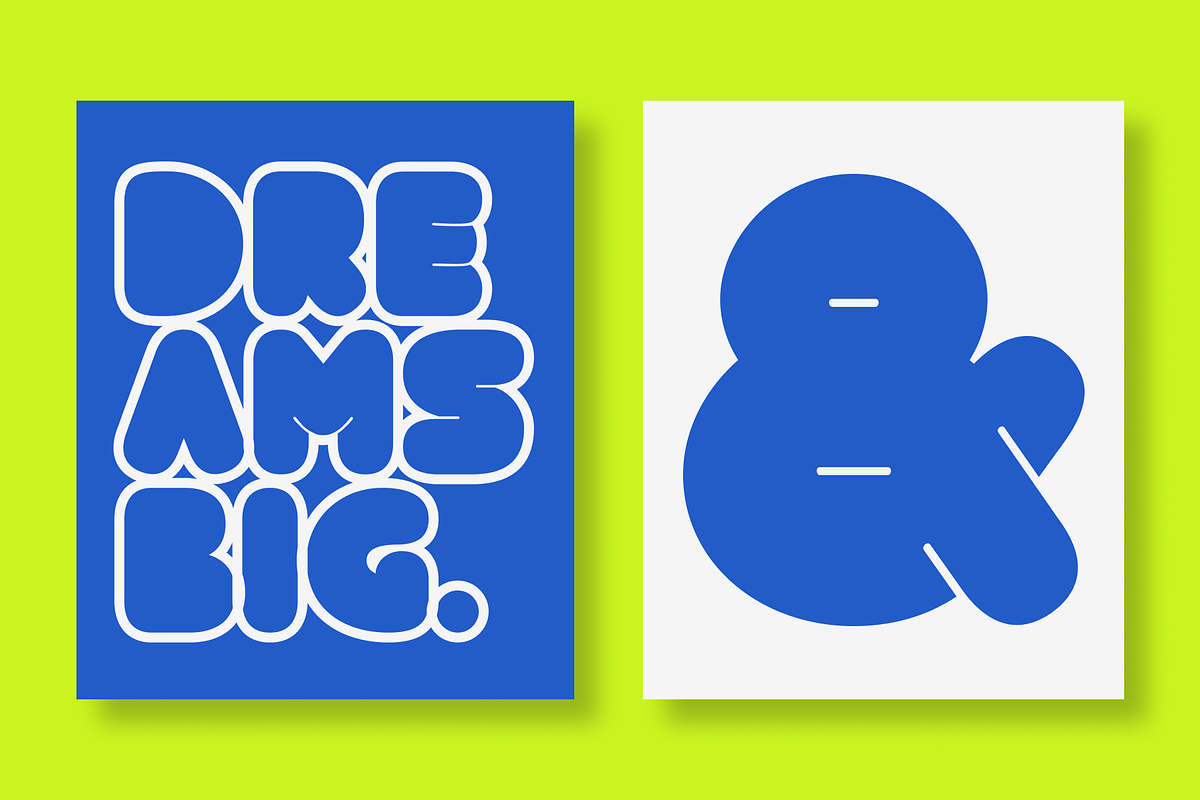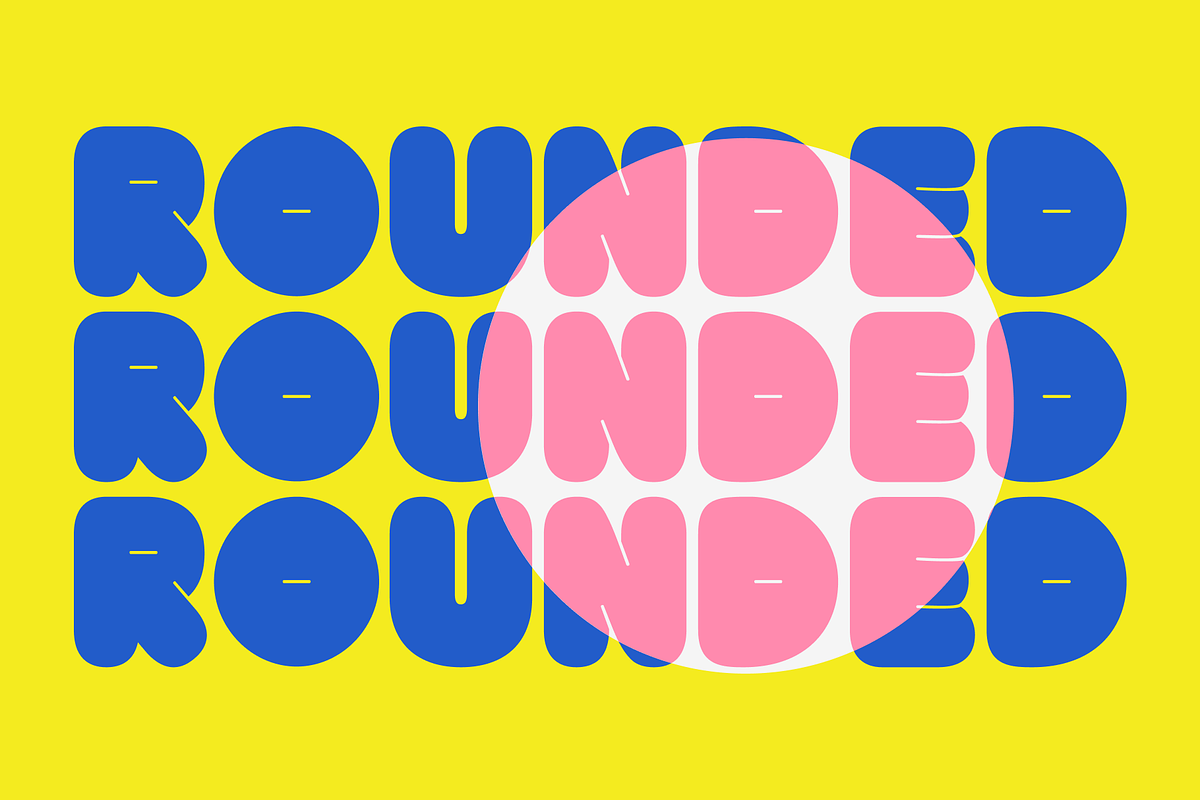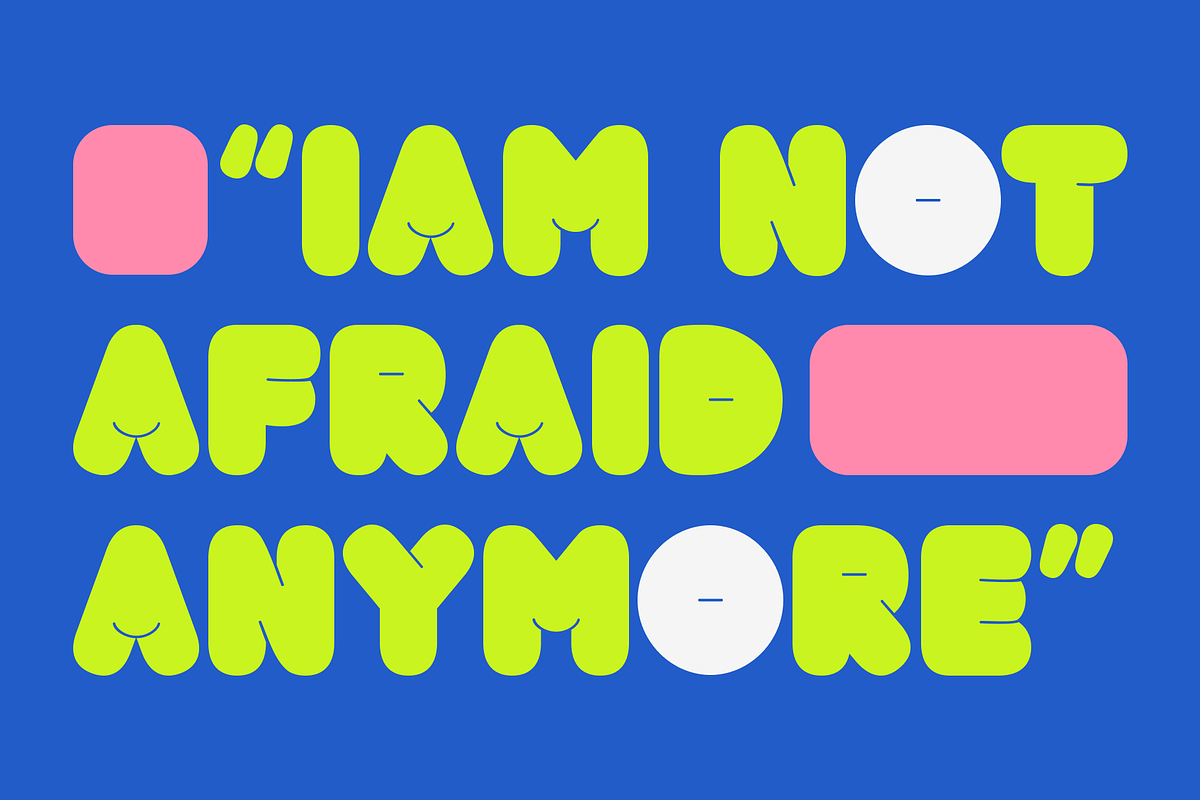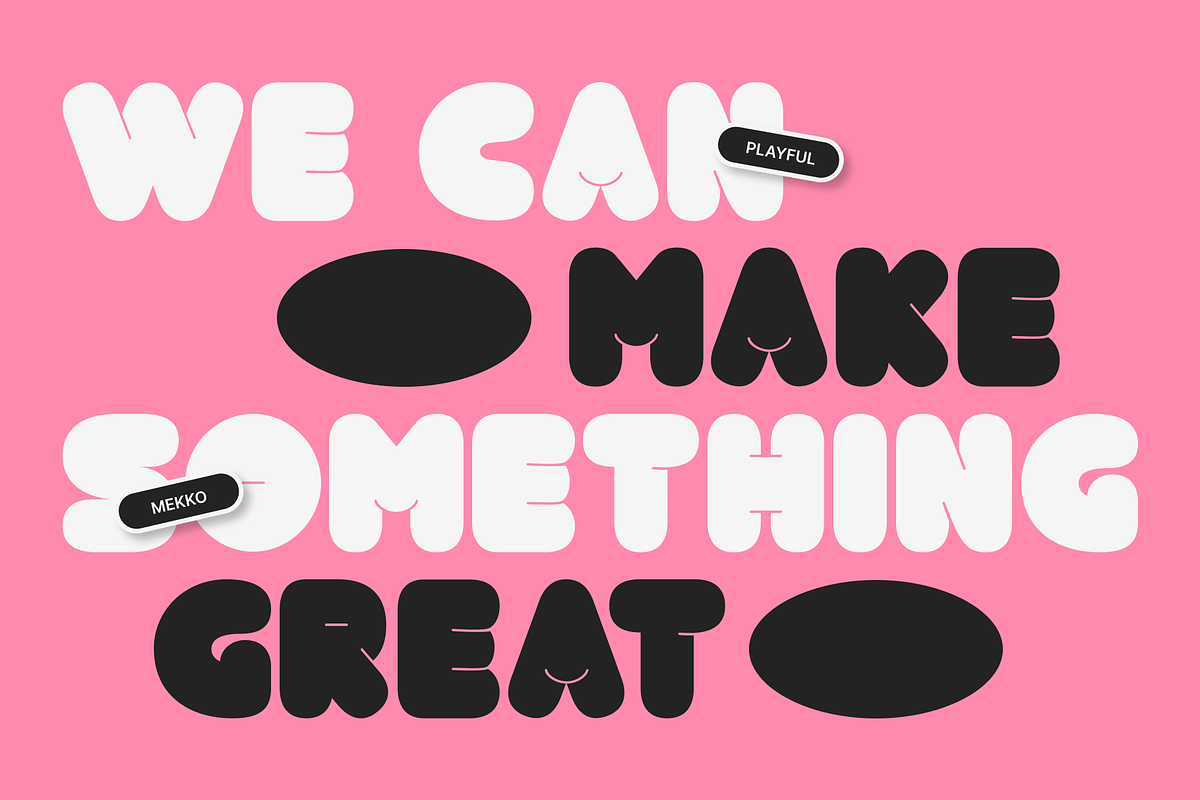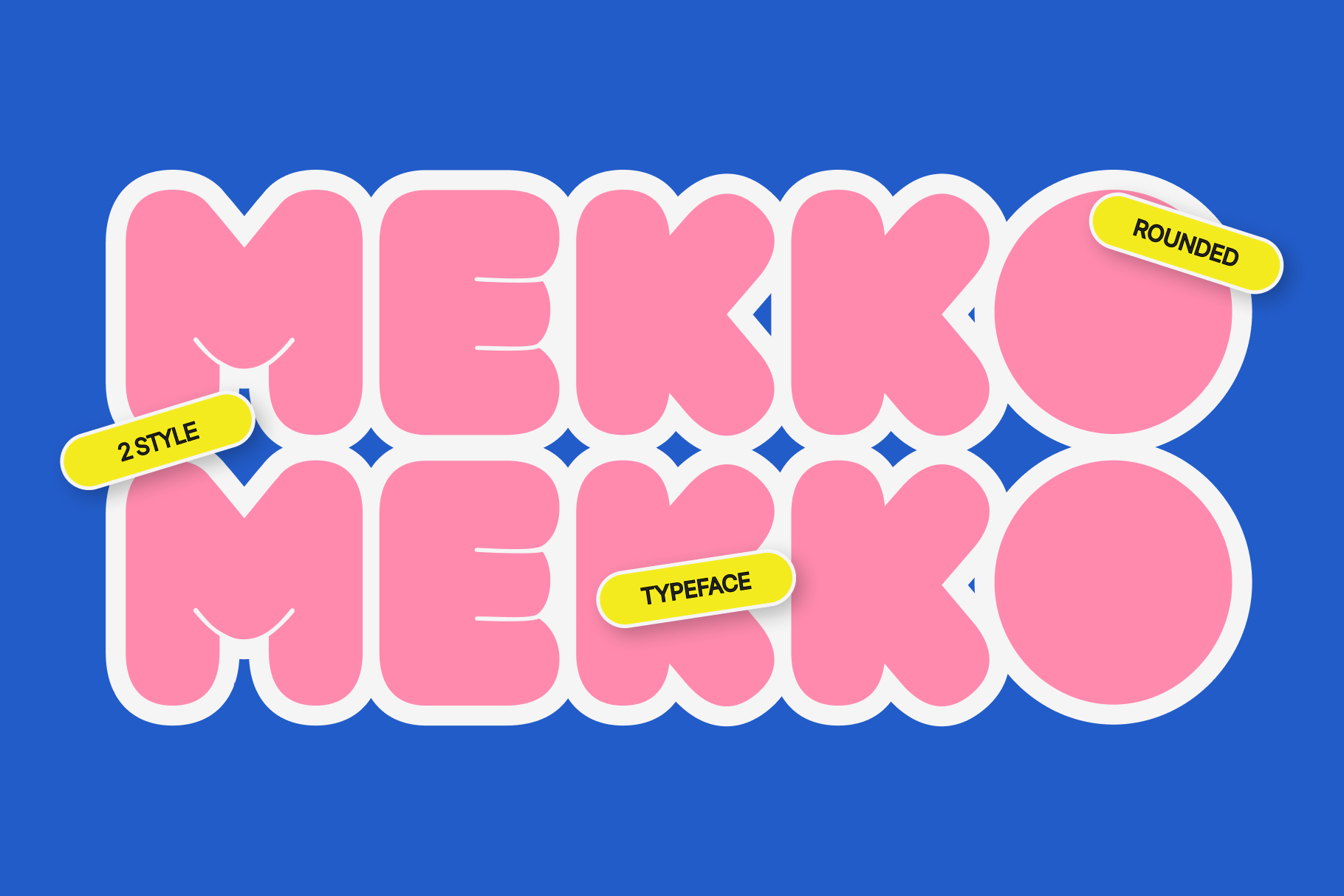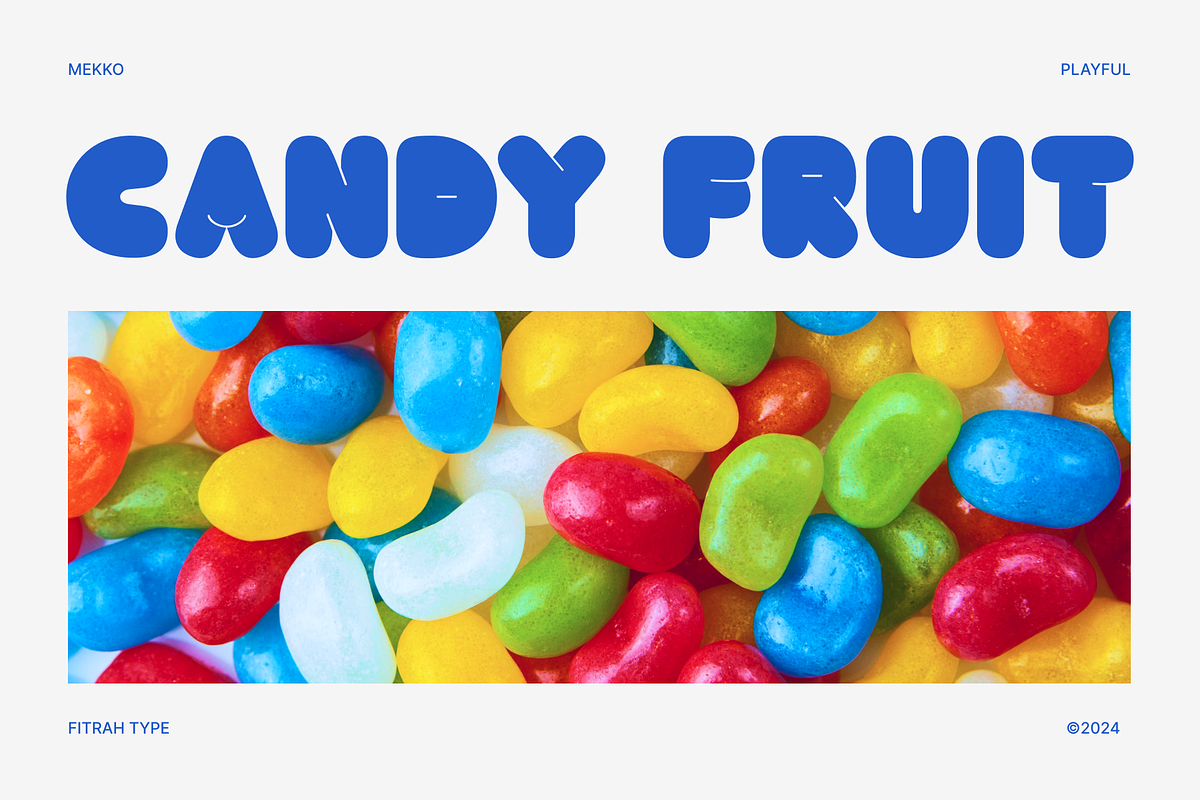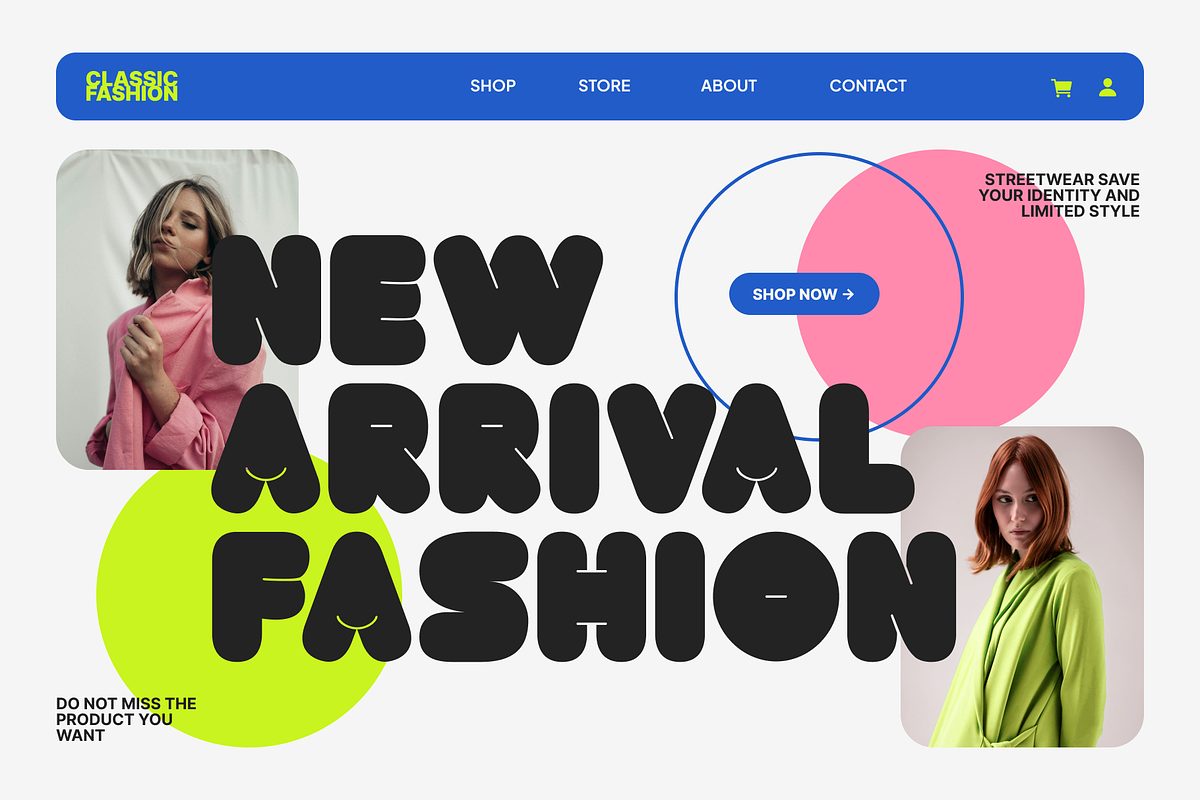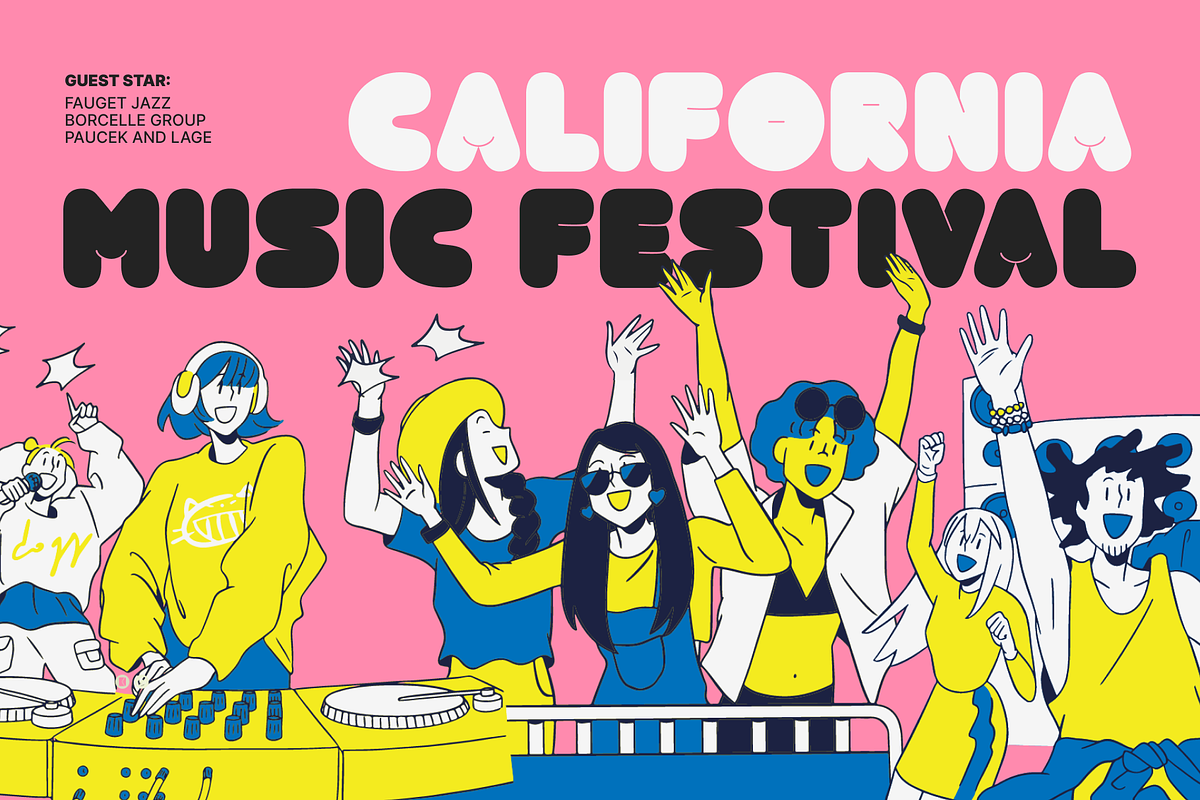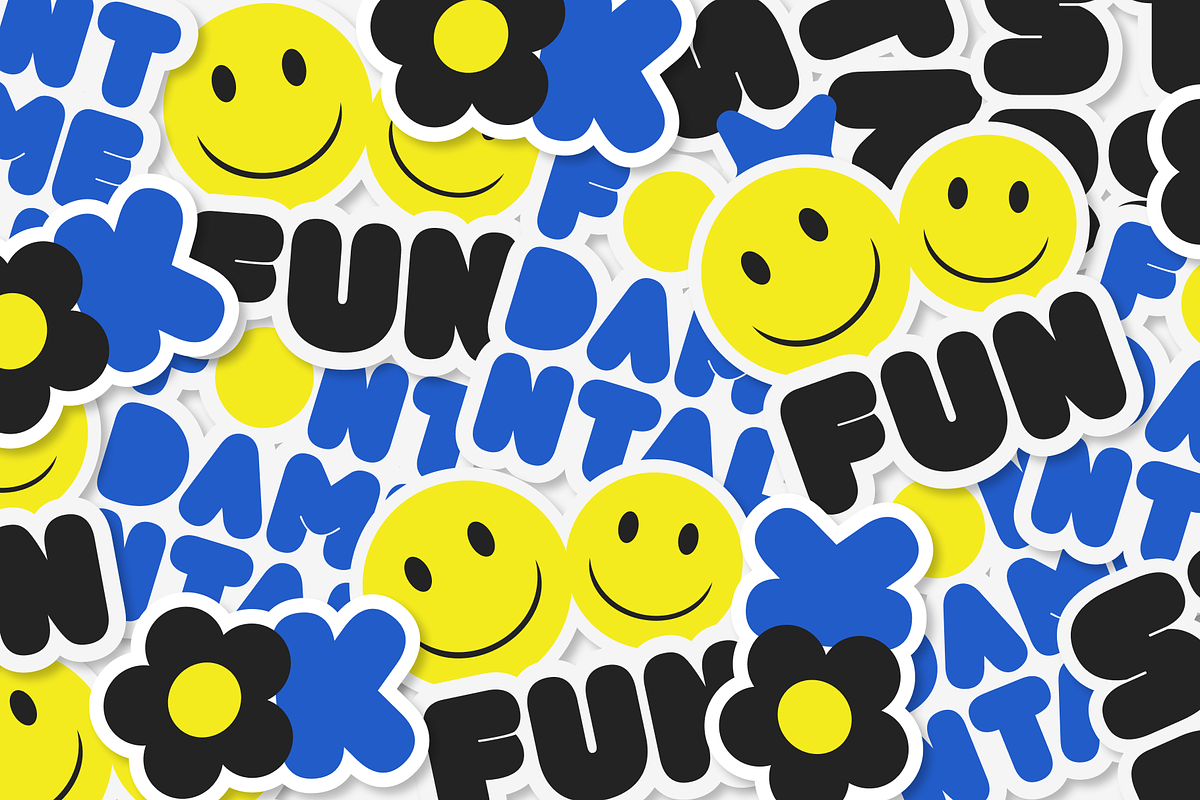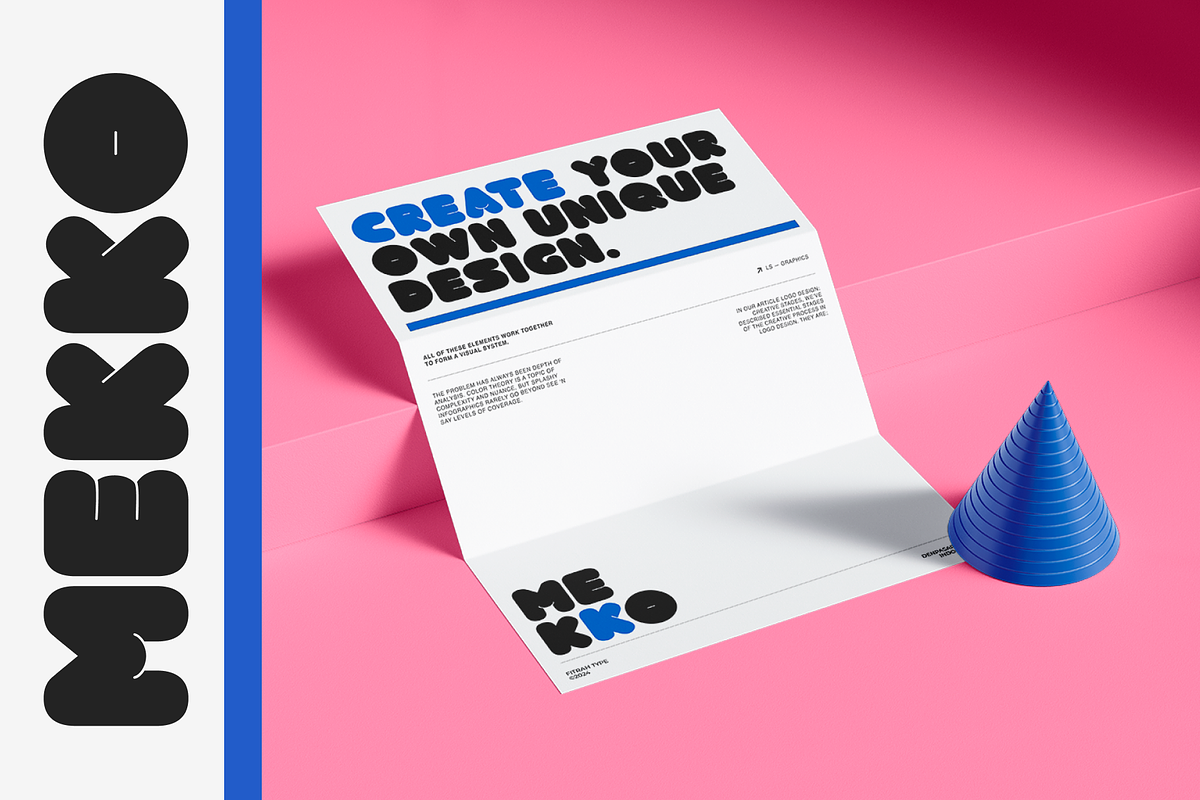
Mekko Rounded Typeface
Mekko is the newest typeface with a rounded style. Character Inspired By Retro and Bold Typeface. The entire typography has been designed to work on large sizes. This font is good to use on posters, zines, stickers, and t-shirts.